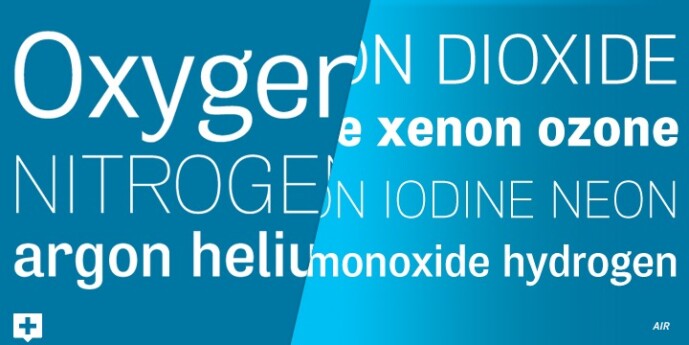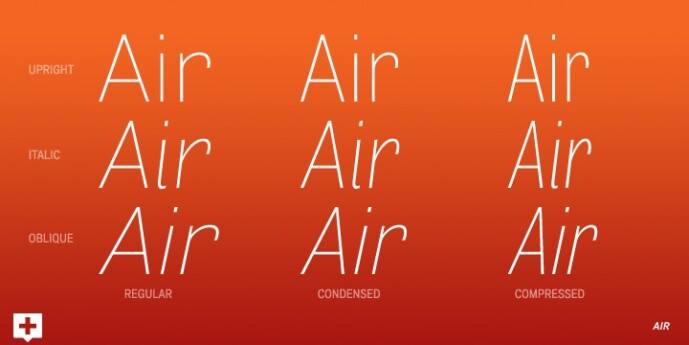
Air Font Family
Designer: Positype
Air Font Family. In B-movie awesomeness, Air began as Grotesk vs. Grotesque. I was trying to unify the prevailing traits of German and English Grotes(que/k)s in order to make something different but familiar. I am NOT trying to reinvent Helvetica (snore), so get that out of your system. From the onset, I intended this typeface to be a true workhorse that offers infinite options and flexibility for the user. At its core, it is the maturation of the Aaux Next skeleton I developed years ago. I worked out Aaux Next to settle my issues and love for Akzidenz. With Aaux Next, I strove to be mechanical, cold and unforgiving with it. I was single, young, cocky and it fit. Now I’m married, kids, dog and have found that I’ve turned into a big softy. When I look at Aaux Next (and have for the past few years) I see another typeface trying to eek out. I wanted it to avoid the trappings of robotic sans, quick tricks and compromises. The typeface’s DNA needed to be drawn and not just generated on a screen — so I set aside a year. I love type. I love working with type. I hate when my options for a slanted complement is only oblique or italic. I set out to produce both to balance usage — there are more than enough reasons to prepare both and I want the user to feel free to consciously choose (and have the option to choose) the appropriate typeface for print, web, etc. That flexibility was central to my decision-making process. The Oblique is immediate and aggressive. The Italic was redrawn at a less severe angle with far more movement and, as a result, is far more congenial when paired with the Uprights. Condensed and Compressed. Yep, why not? I know I would use them. There are nine weights currently available. The logical progression of weights and the intended flexibility demanded I explore a number of light weights and their potential uses — this has produced a number of ‘light without being too light’ options that really work based on the size. The result is a robust 81-font superfamily that is functional, professional, and highly legible without compromising its personality. Pair that with over 900 characters per font that includes ligatures, discretionary ligatures, stylistic alternates, fractions, proportional/tabular lining and proportional/tabular oldstyle figures, numerators, denominators, ordinals, superiors, inferiors, small caps, case-sensitive functionality and extensive language support and you have a versatile superfamily well-suited for any project.